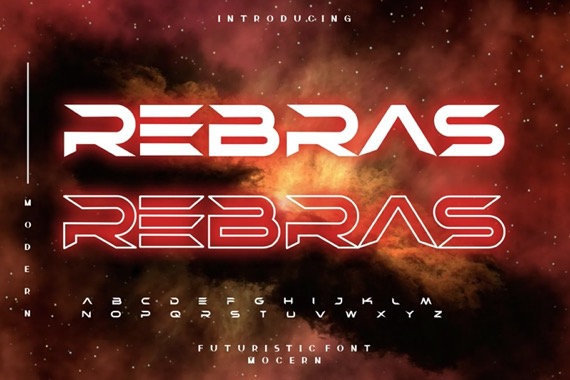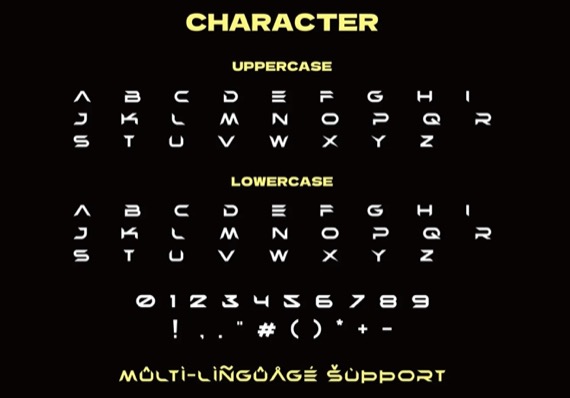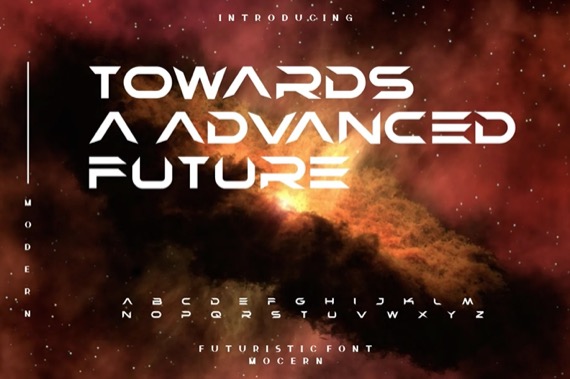
Rebras is a display sans serif font family that was created and shared by Hayoyuka8. With each style has its own character, from very strong to very soft angles. And this will make your design projects become more beautiful.
Rebras Display Font